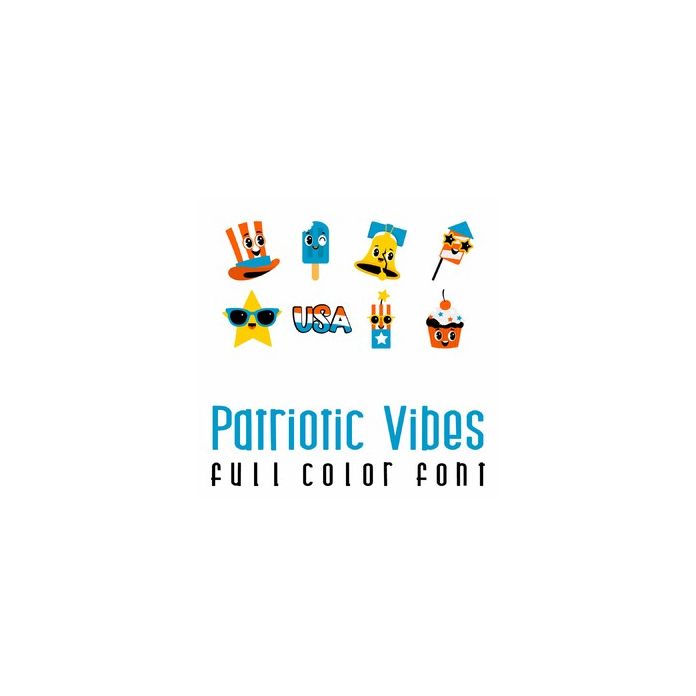
This fun full color doodlebat font features adorable Patriotic imagery. Perfect for cards, crafts, gifts, decor, scrap book pages, planner stickers and more!